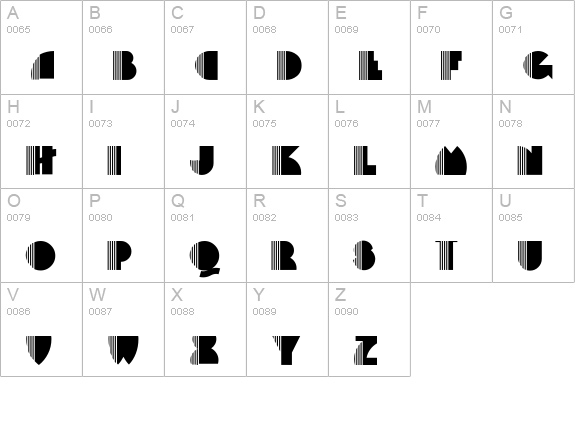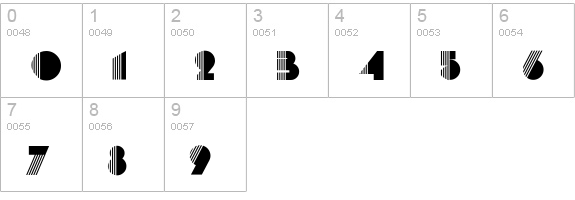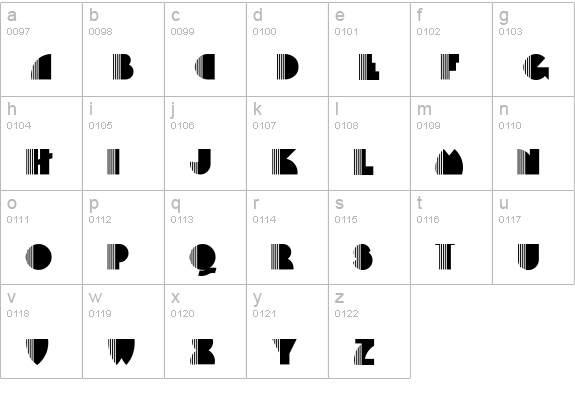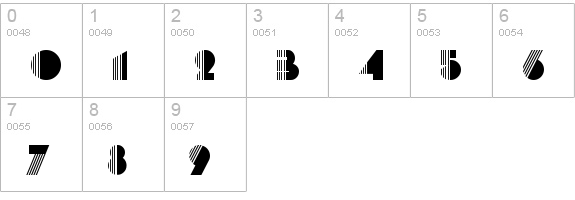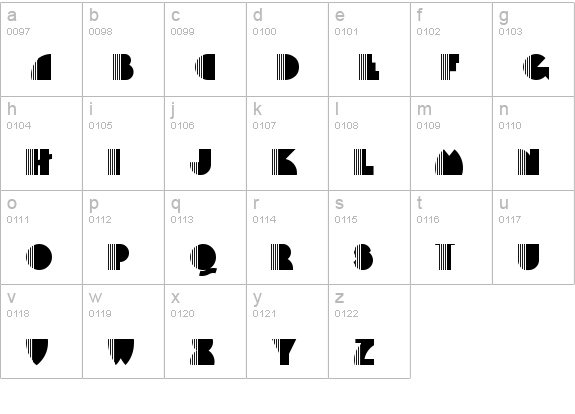
Introducing Backstage-PassA, a font that exudes an air of elegance and sophistication. With its sleek lines and stylish curves, this font is perfect for adding a touch of class to any design project. But what sets Backstage-PassA apart is that it is not just any font - it is a font that is free! Yes, you read that right. Backstage-PassA is freely available to download at FontsMarket.com, allowing you to enhance your creations without breaking the bank. Whether you're designing a logo, crafting a stunning invitation, or creating eye-catching graphics for your website, Backstage-PassA will elevate your work to new heights. Its clean and modern look ensures readability, while its unique character adds a hint of playfulness. The versatility of Backstage-PassA knows no bounds. It seamlessly complements both bold and minimalist designs, making it a go-to font for designers and creatives alike. Its wide range of weights and styles offer endless possibilities, allowing you to find the perfect fit for your project. Backstage-PassA is not just a font, it's an experience. It invites you to step into the world of creativity and imagination, where possibilities are limitless. So why wait? Download Backstage-PassA for free at FontsMarket.com and embark on a journey of design excellence today.